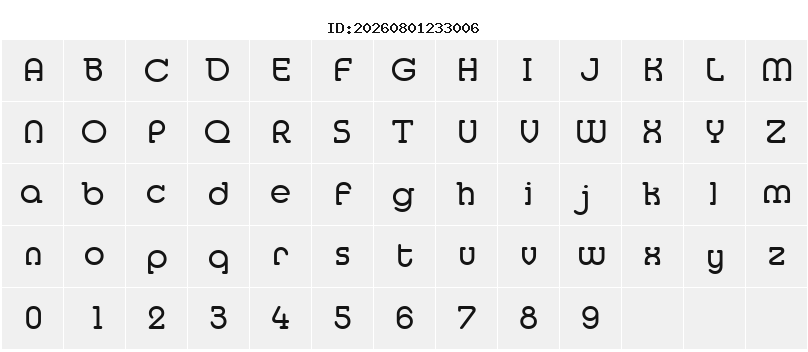
• Font Name: Media-Serial DB
About Media-Serial DB.ttf
Media-Serial DB.ttf is a modern, elegant sans-serif font designed for ultimate readability and visual harmony. Perfect for branding, headlines, web design, and print materials.